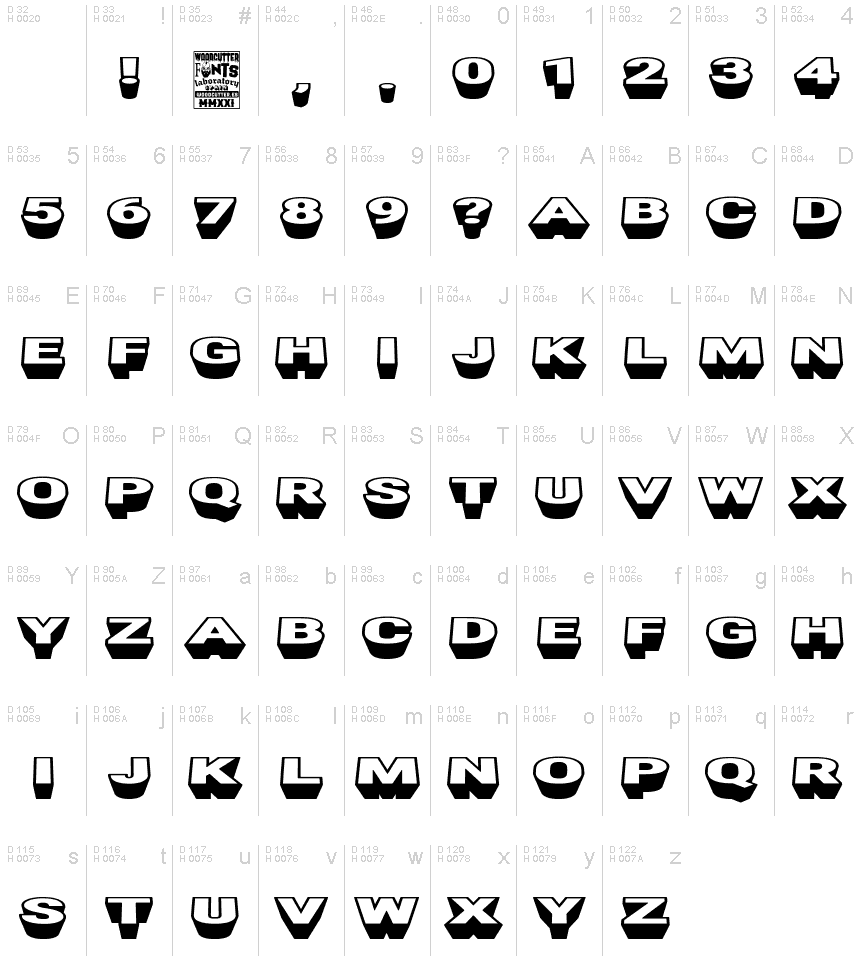
New Blackbuster
New Blackbuster, crafted by Woodcutter, is a captivating display font that demands attention with its 3D style. Its extra-bold weight and expanded width make it perfect for projects seeking a bold and impactful visual statement.
Imagine using this font for movie posters, video game titles, or sports team logos. With New Blackbuster, your designs will leap off the page and leave a lasting impression on any audience. Let this font be the star of your next creative endeavor!